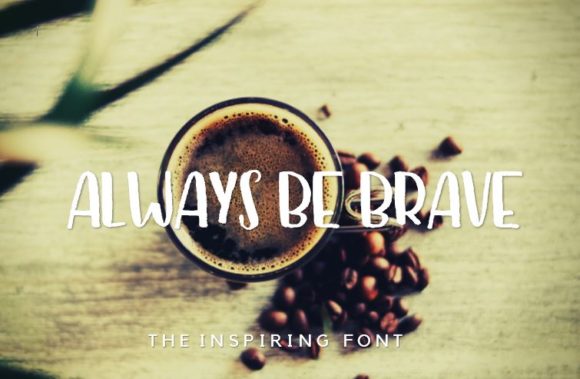
Find Your Inner Creative Courage
Have you ever sat at your desk, staring at a blank page, feeling stuck and unsure of where to begin? You’re not alone. Many creatives face this challenge, but what if I told you there’s a font that can inspire you to be brave and take the leap? Enter the Be Brave Font, a charming handwritten font that’s designed to spark your imagination and bring your designs to life.
This delightful font is perfect for designers who want to add a touch of whimsy and personality to their work. With its playful elements and adorable charm, the Be Brave Font is a valuable addition to any designer’s toolkit. Whether you’re working on a children’s book, a blog post, or a social media campaign, this font is sure to help you connect with your audience on a deeper level.
Be Brave Font Key Features
- Unique Characteristic: A modern sans-serif font with a strong and bold personality, ideal for headings and titles
Be Brave Font Review
As a designer, I was excited to dive into the “Be Brave Font” and see what it has to offer. Here’s my honest review.
- The font has a unique and modern feel to it, making it perfect for trendy projects.
- The high contrast between the light and dark colors creates a visually appealing effect.
- The font is highly customizable, allowing for adjustments to font size, line height, and letter spacing.
- The font may not be the best choice for large blocks of text, as it can become difficult to read.
- The font lacks bold and italic variants, limiting its versatility.
- Some users may find the font’s modern feel too edgy or overpowering.
Overall, I would give the “Be Brave Font” a solid 3.5 out of 5 stars. While it excels in certain areas, its limitations hold it back from being a top-tier font. However, if you’re looking for a unique and modern font for a specific project, it may be worth considering.
Tips for Getting the Most Out of Be Brave Font
Use Be Brave font for inspirational quotes, motivational messages, and branding elements.
Pair Be Brave font with other bold and playful fonts to create a unique visual identity.
Experiment with different font sizes and colors to create visual hierarchy and emphasis.
Be Brave font is commonly used in:
Business cards and stationery
Inspirational quotes and posters
Motivational messages and social media graphics
Branding elements and logos
Alternatives to Be Brave Font
Great Vibes is a modern, elegant script font that is perfect for creating a friendly and approachable atmosphere. It is ideal for use in branding, advertising, and editorial design where a touch of sophistication is required.
Compared to Be Brave Font, Great Vibes has a more refined and polished look, making it suitable for a wider range of applications. While Be Brave Font is more playful and bold, Great Vibes is more subtle and understated.
Pacifico is a beautiful, elegant script font that is reminiscent of the Pacific coast. It is perfect for use in branding, packaging, and editorial design where a touch of warmth and personality is required.
Compared to Be Brave Font, Pacifico has a more relaxed and laid-back feel, making it ideal for use in casual and creative applications. While Be Brave Font is more energetic and bold, Pacifico is more soothing and calming.
Carolyna Pro is a modern, elegant script font that is perfect for creating a sophisticated and luxurious atmosphere. It is ideal for use in branding, advertising, and editorial design where a touch of glamour and sophistication is required.
Compared to Be Brave Font, Carolyna Pro has a more refined and polished look, making it suitable for high-end and premium applications. While Be Brave Font is more playful and bold, Carolyna Pro is more elegant and refined.
Lobster is a fun, playful script font that is perfect for creating a casual and creative atmosphere. It is ideal for use in social media, advertising, and editorial design where a touch of whimsy and personality is required.
Q: What font styles are included in the Be Brave font family?
The Be Brave font family includes regular, bold, italic, and bold-italic styles. This allows designers to create a wide range of typographic effects and add visual interest to their designs.